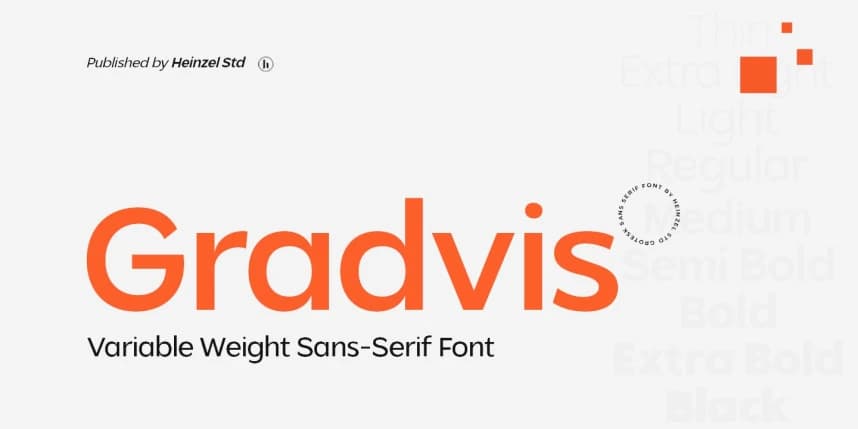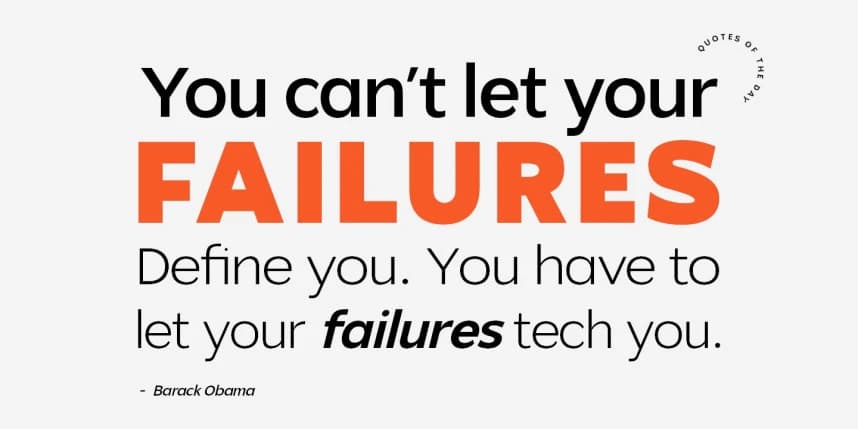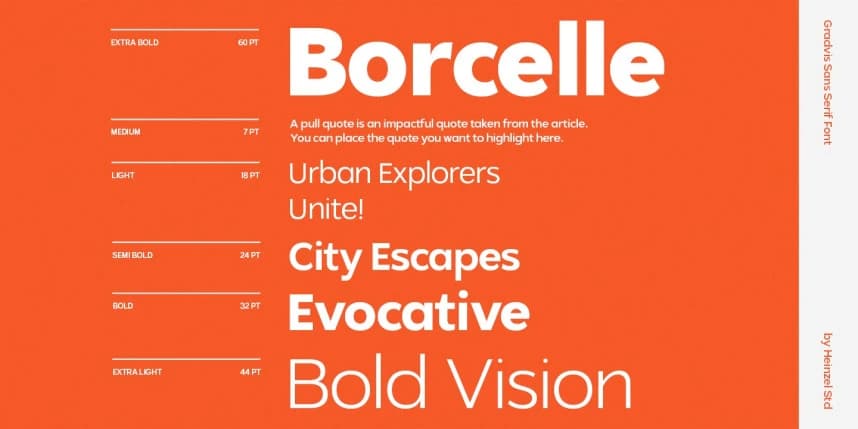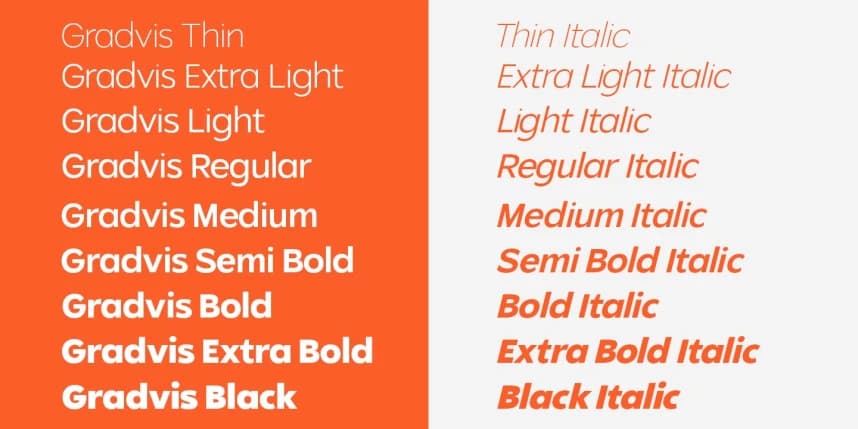
Gradvis Font
Gradvis Font is a modern and versatile sans-serif typeface designed to bring clarity, flexibility, and contemporary style to any project. Built with precision and a clean geometric structure, Gradvis delivers a smooth visual flow that works perfectly across digital and print media